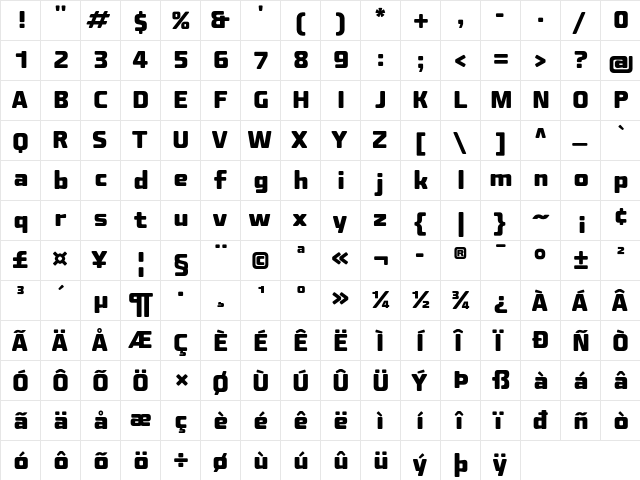
Fishmonger EEB Plain
Design Context for Fishmonger EEB Typeface
Fishmonger EEB offers clean, dependable letterforms without strong stylistic allegiance, making it a practical choice for designers who need flexibility.